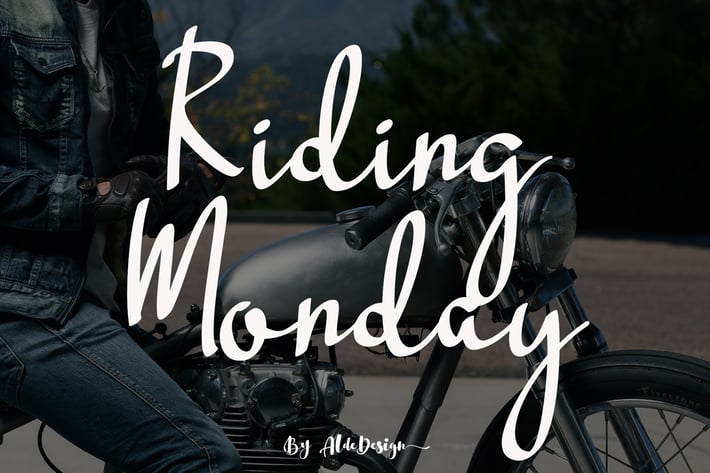
Riding Monday - Signature Font
Riding Monday is a font with simple and classy taste, comes with stylish ligatures. We keep this font looks classy, readable, elegant, stylish, catchy and absolutly easy to use.
Riding Monday is the great choice for watermark on photography, signature or signature logo design, album cover, business card, quotes, and many other design project.
Stylish handwritten style
Special Ligatures